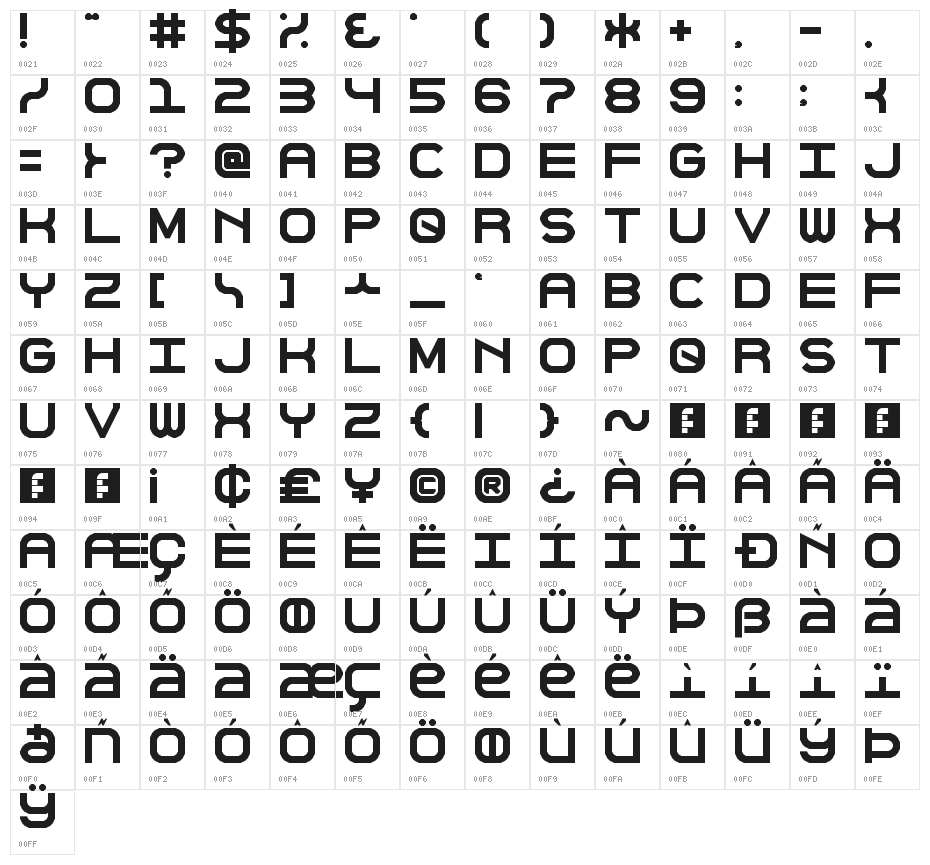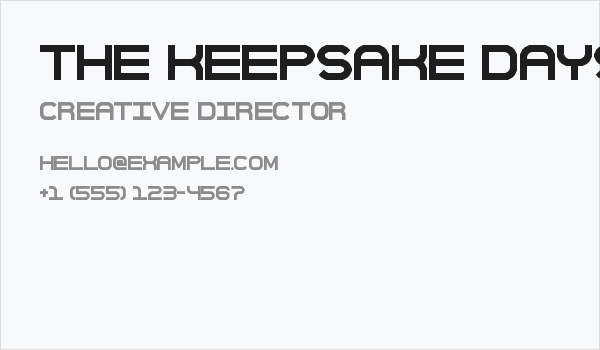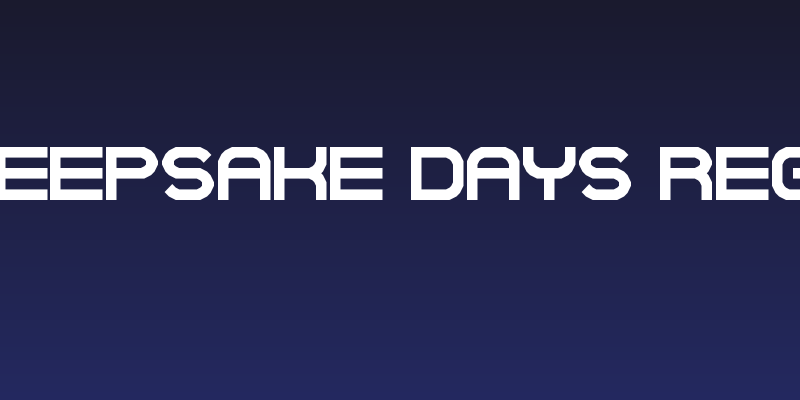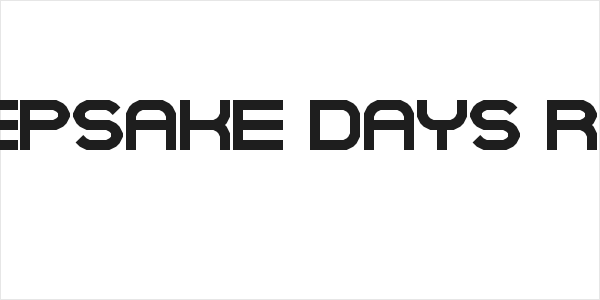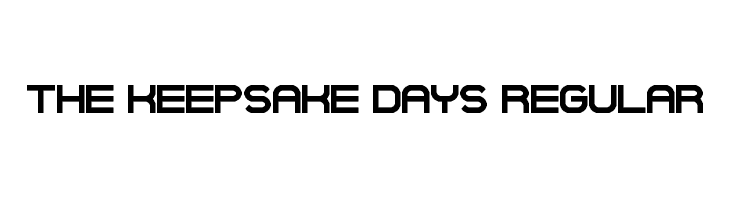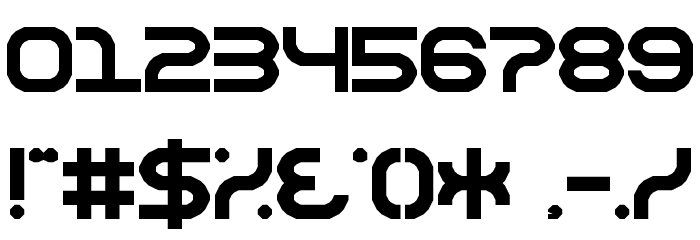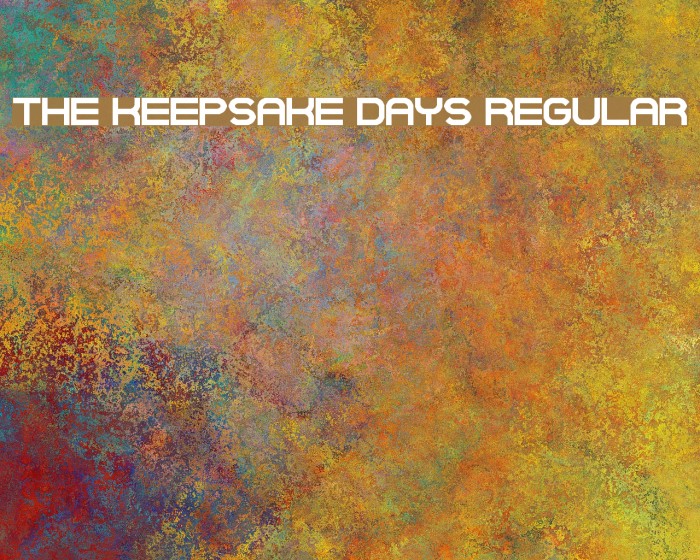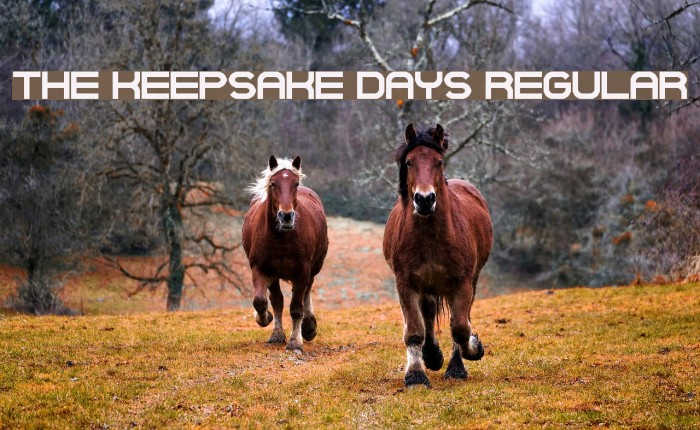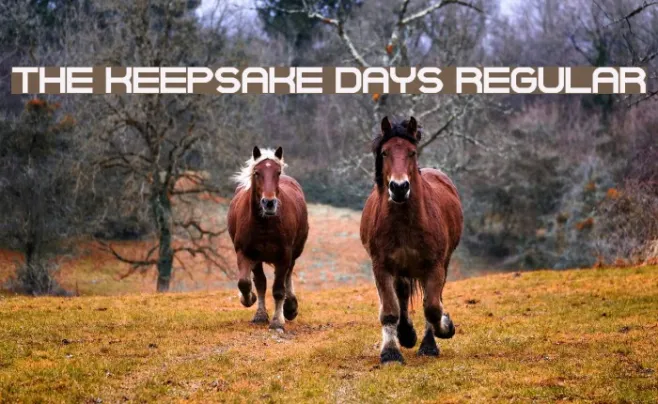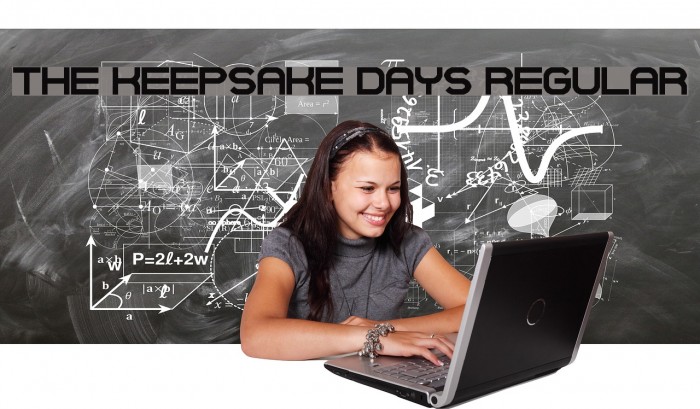
The Keepsake Days Regular Font
The Keepsake Days Regular Description
This font features a bold, geometric style with a modern and futuristic appearance. The characters are constructed with straight lines and sharp angles, giving it a distinctive, tech-inspired look. The uppercase and lowercase letters maintain a consistent height, contributing to a uniform and structured aesthetic. The numerals and special characters follow the same design principles, ensuring cohesion across all glyphs. This font's unique style makes it stand out, with a strong presence that commands attention.
| Proposed Projects | Ideal for technology branding, futuristic posters, video game titles, and digital interfaces. |